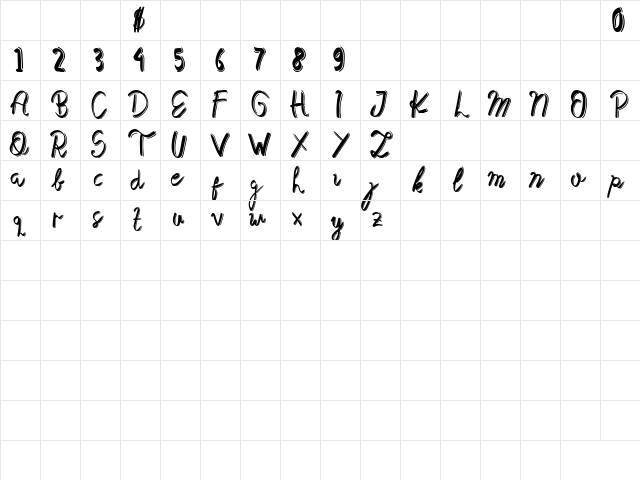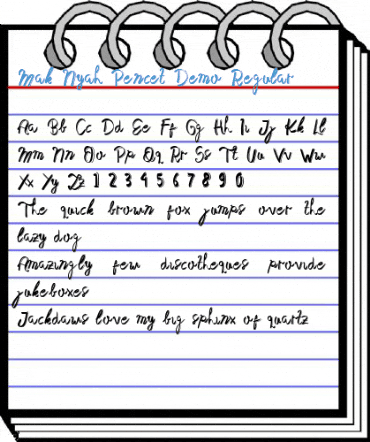
Mak Nyah Pencet Demo is a composed and adaptable typeface that performs quietly and consistently across a wide range of design contexts.
Pro Tip: Use Mak Nyah Pencet Demo in both headline and body roles to test its range before committing to a single application.